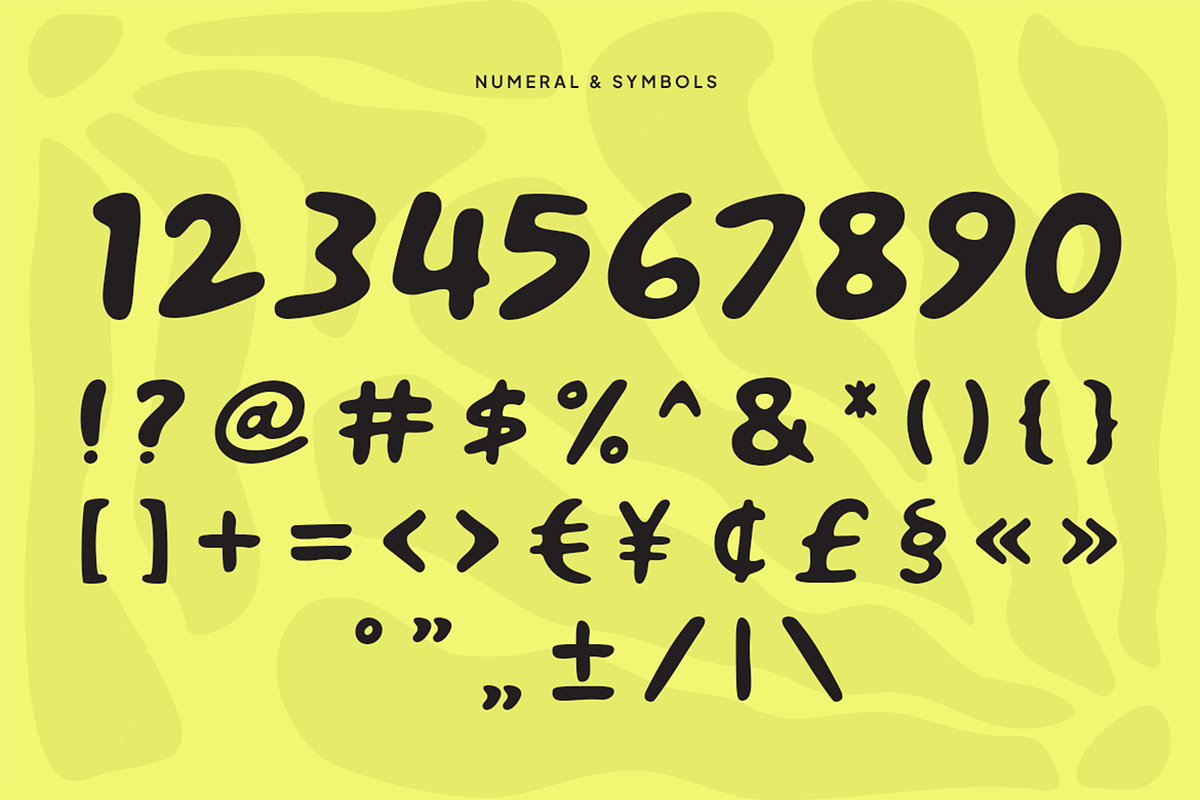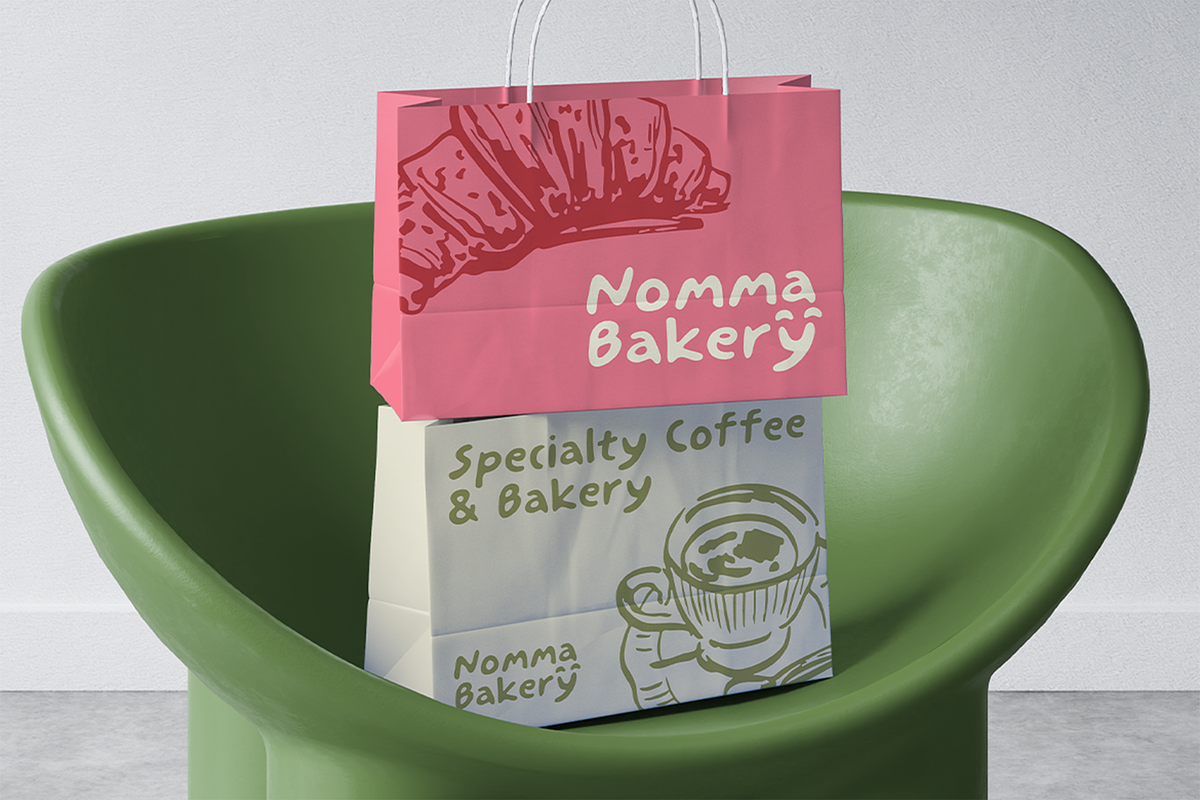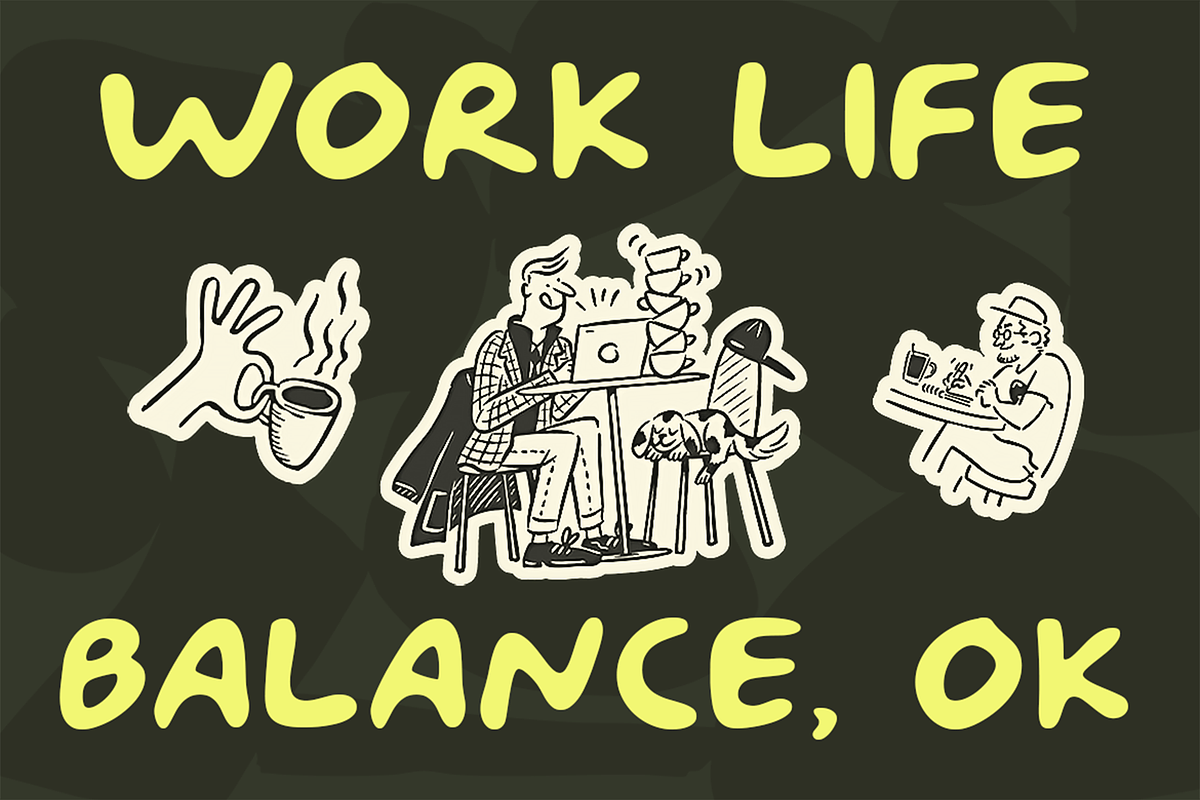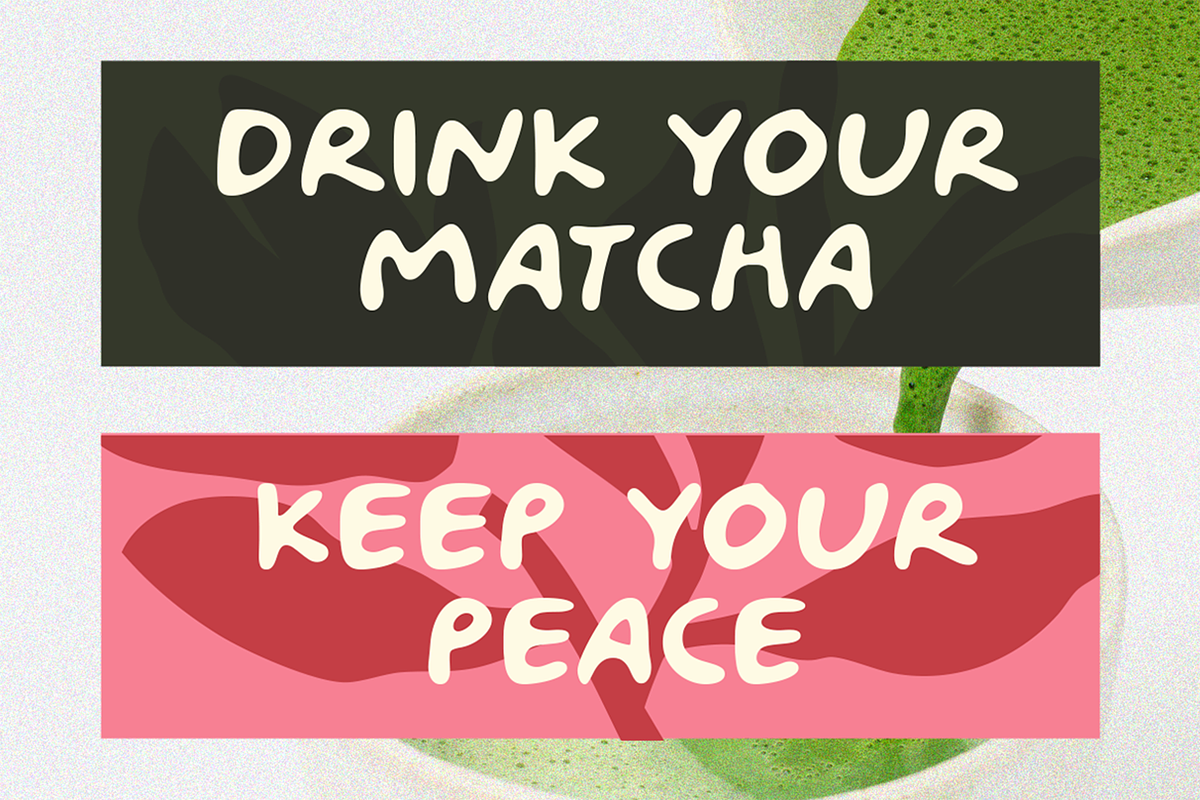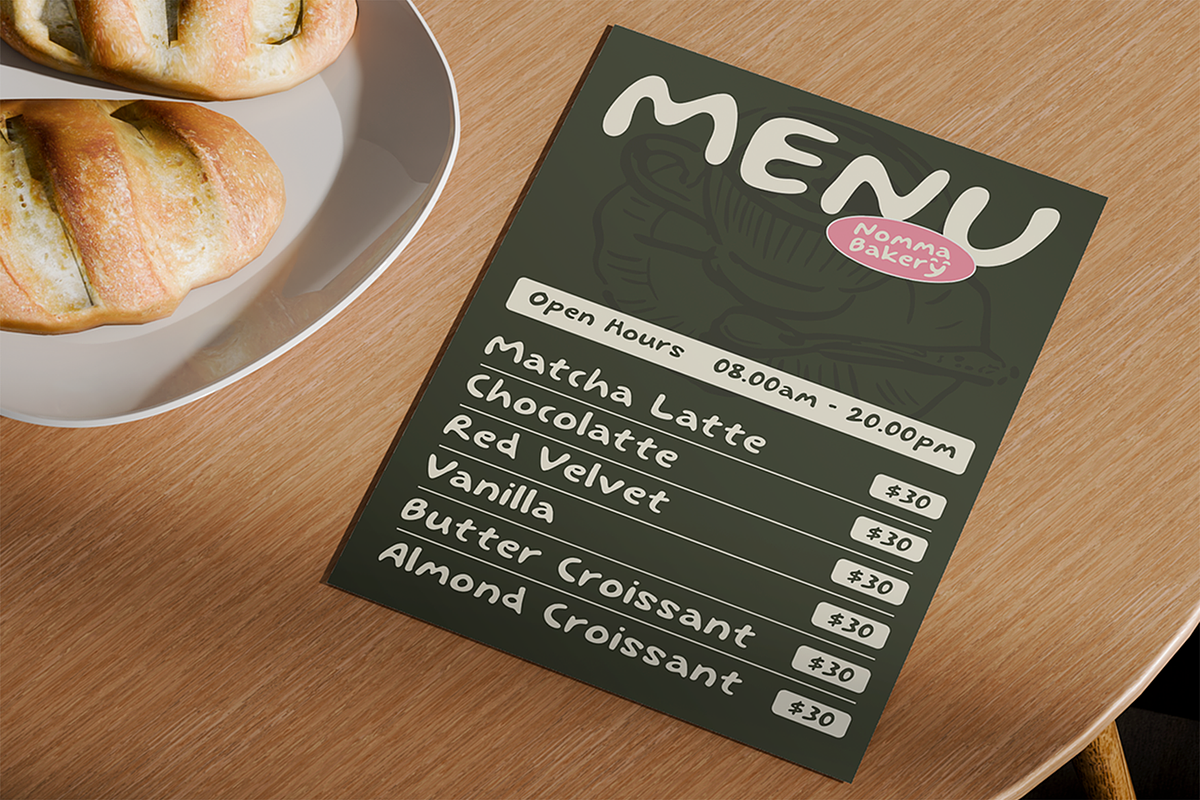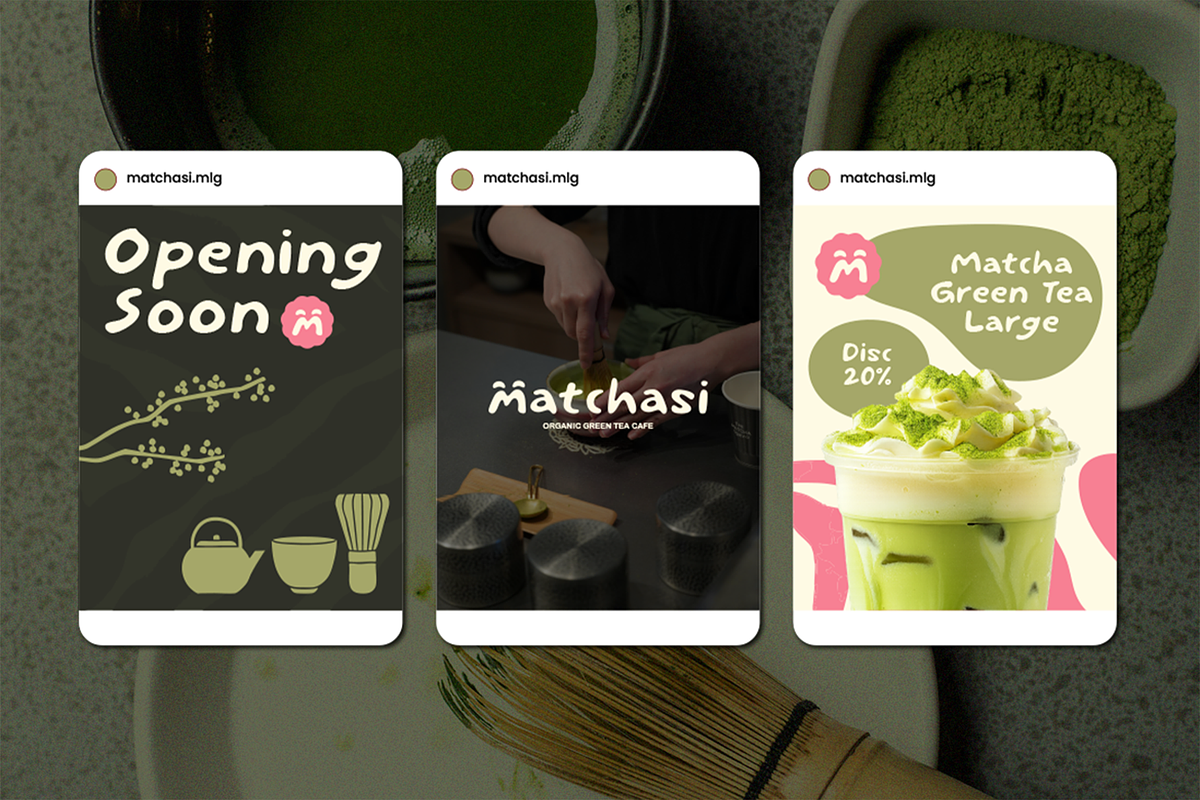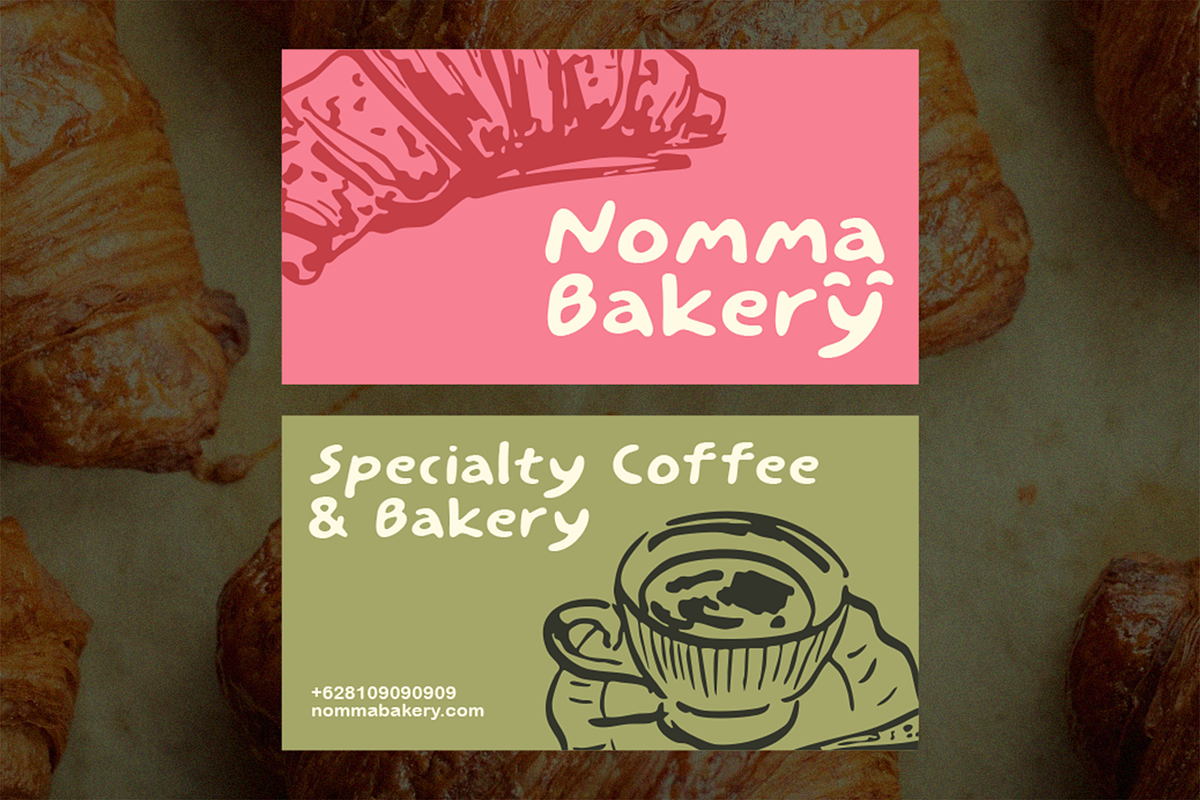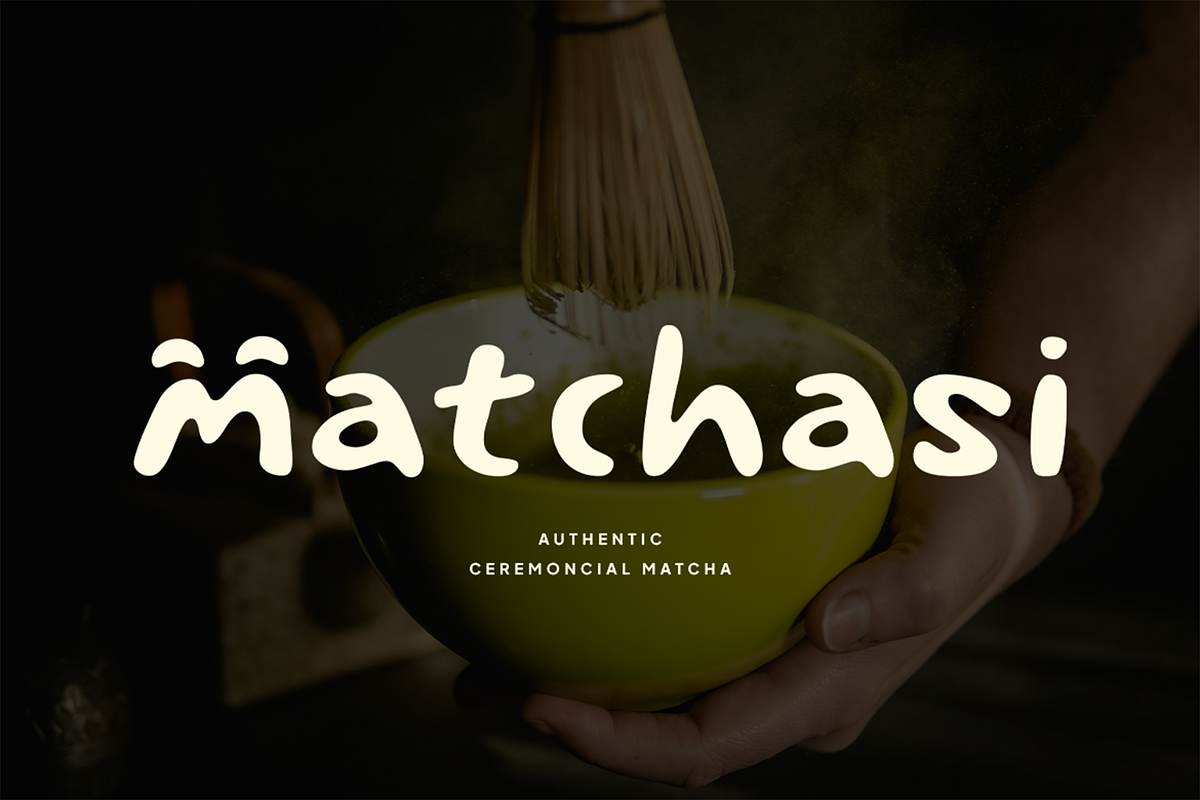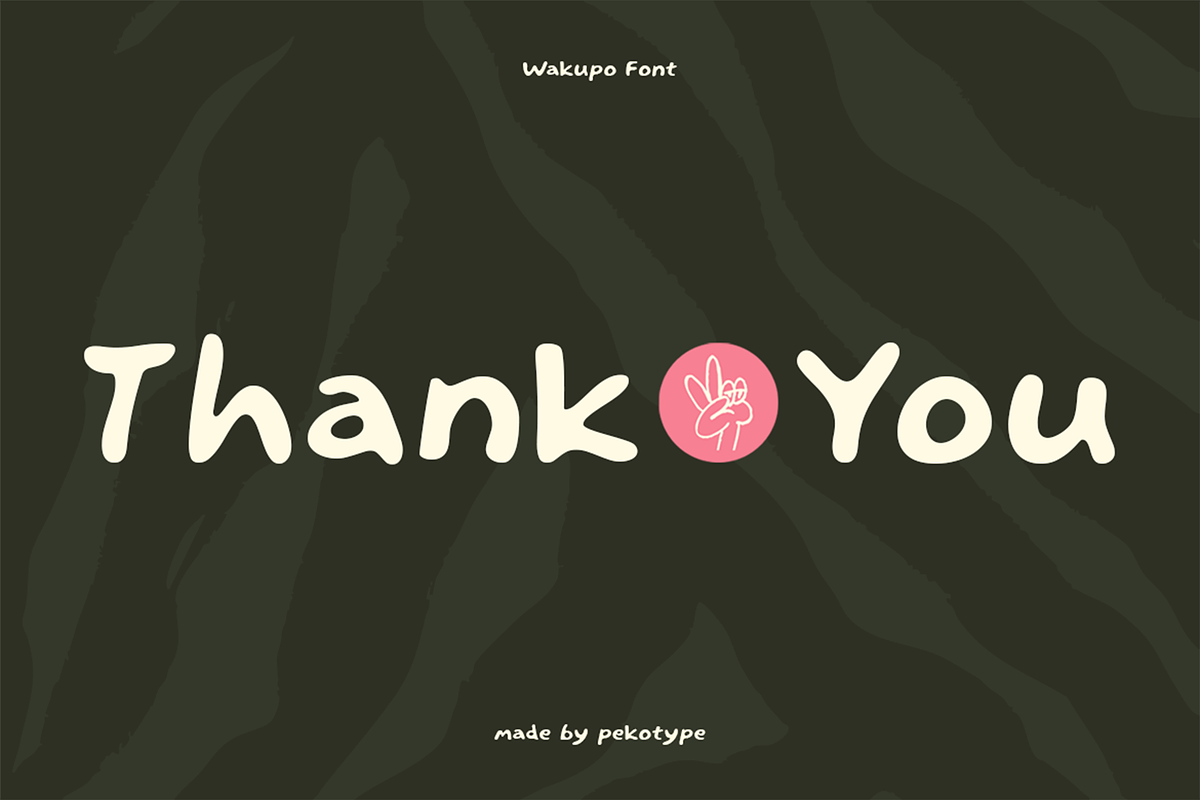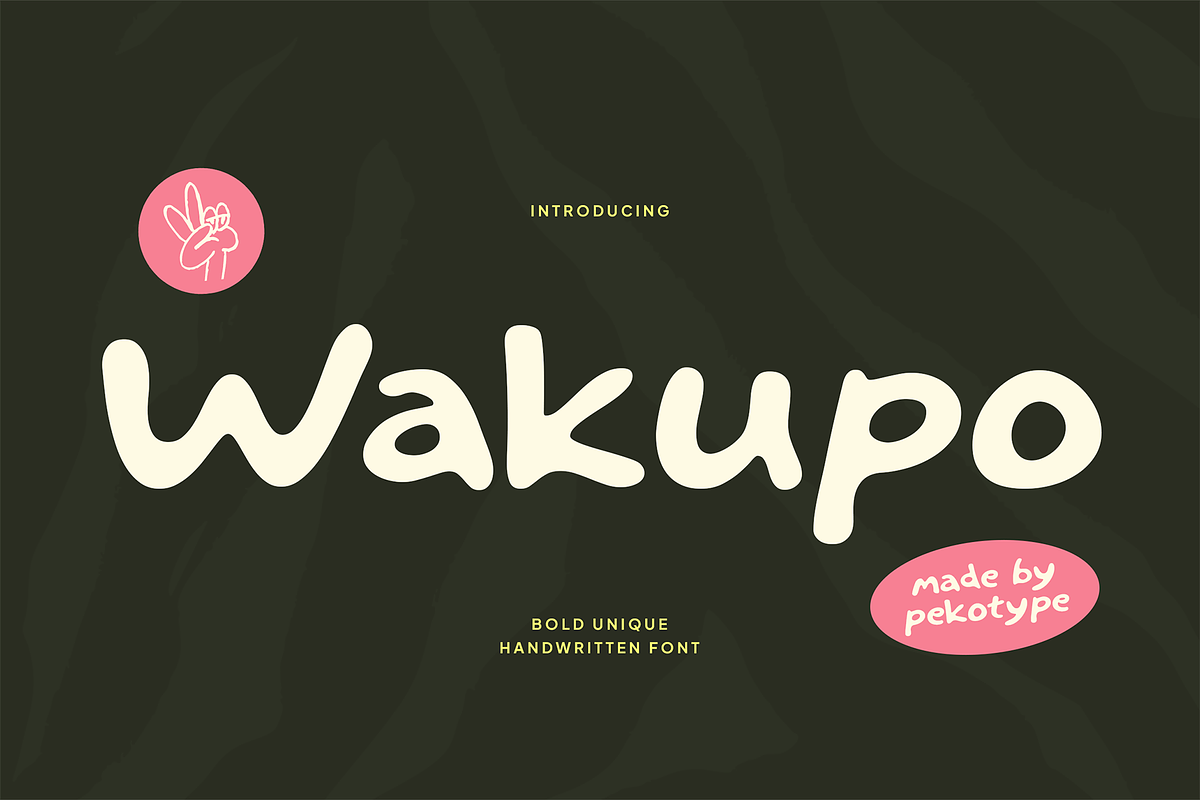
WAKUPO - Unique Display Font
Meet WAKUPO, a unique handwritten display font created to bring warmth, personality, and playful energy into every design. Inspired by natural strokes and organic handwriting, WAKUPO gives your visuals a bold yet friendly character that feels authentic and memorable.
Designed with a full set of uppercase and lowercase letters, WAKUPO offers expressive versatility for all your creative needs. Whether you're crafting branding, logos, product packaging, marketing materials, social media posts, café menus, or promotional designs, this font ensures your message stands out with charm and confidence.
WAKUPO also supports multilingual characters, making it flexible for global projects. Its handcrafted style blends modern display aesthetics with the simplicity of casual handwriting — perfect for designers seeking a font that feels distinctive, organic, and eye-catching.
Bring your brand to life with a typeface that speaks with personality. Bring in WAKUPO — your new go-to handwritten display font.